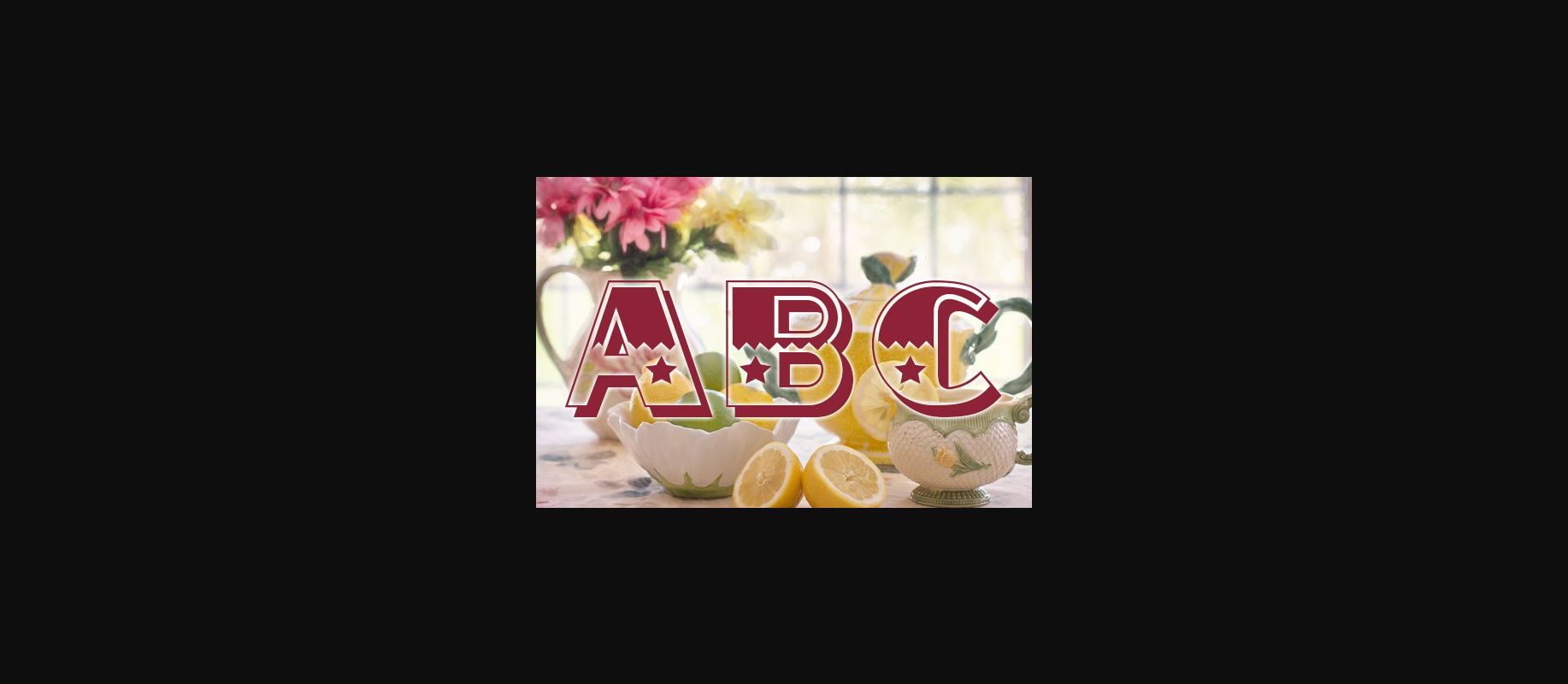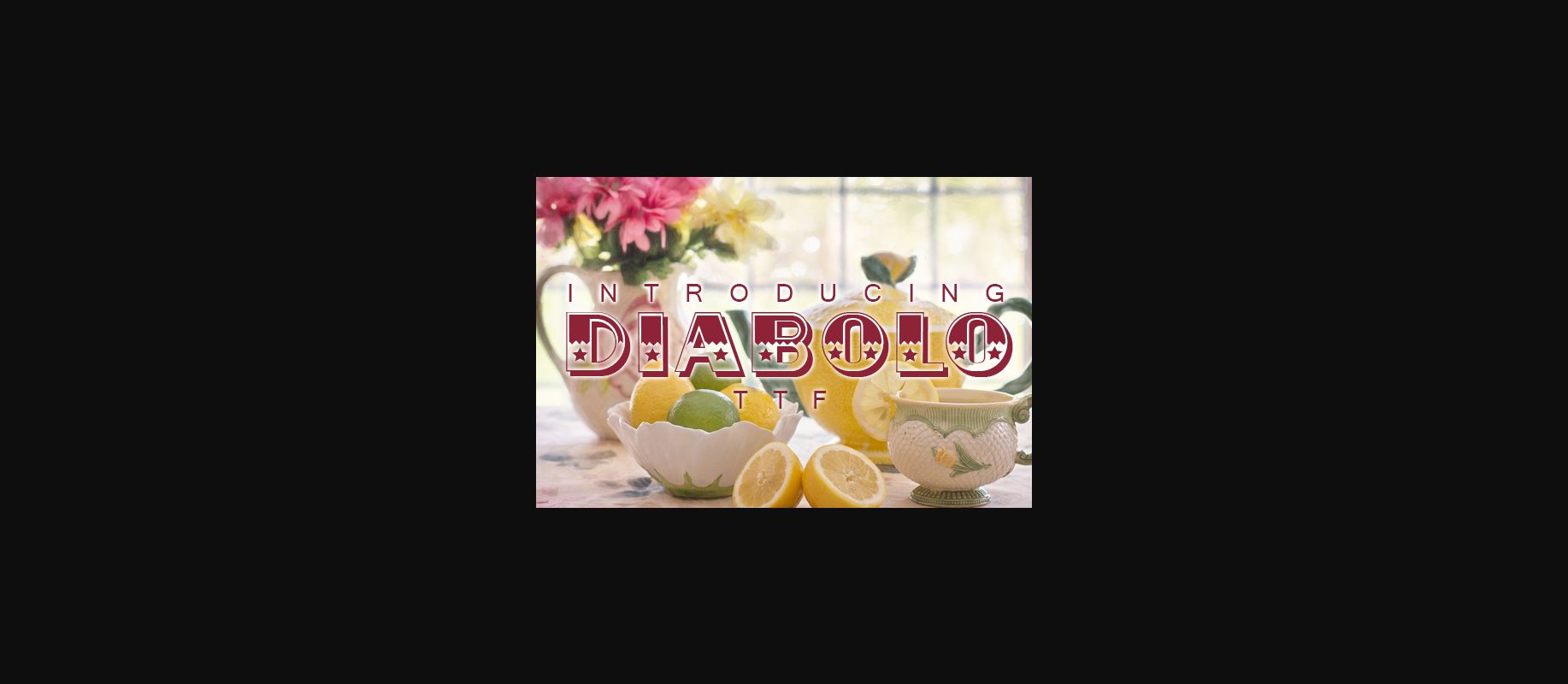
Diabolo Font
About Diabolo Font
Diabolo is an awesome circus-style font that will give your designs a unique retro touch. Fall in love with its incredibly stylish look and use it to create spectacular designs!